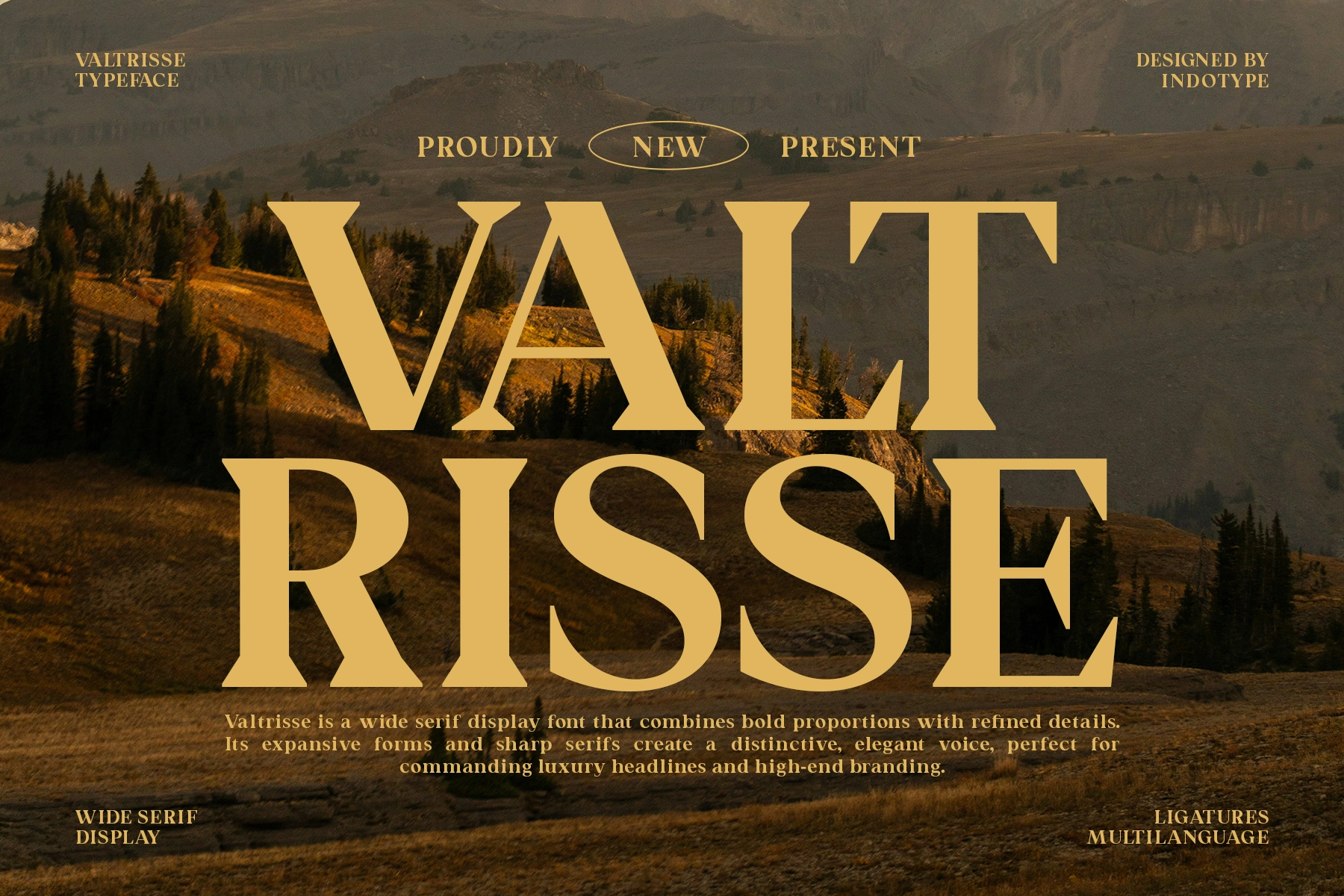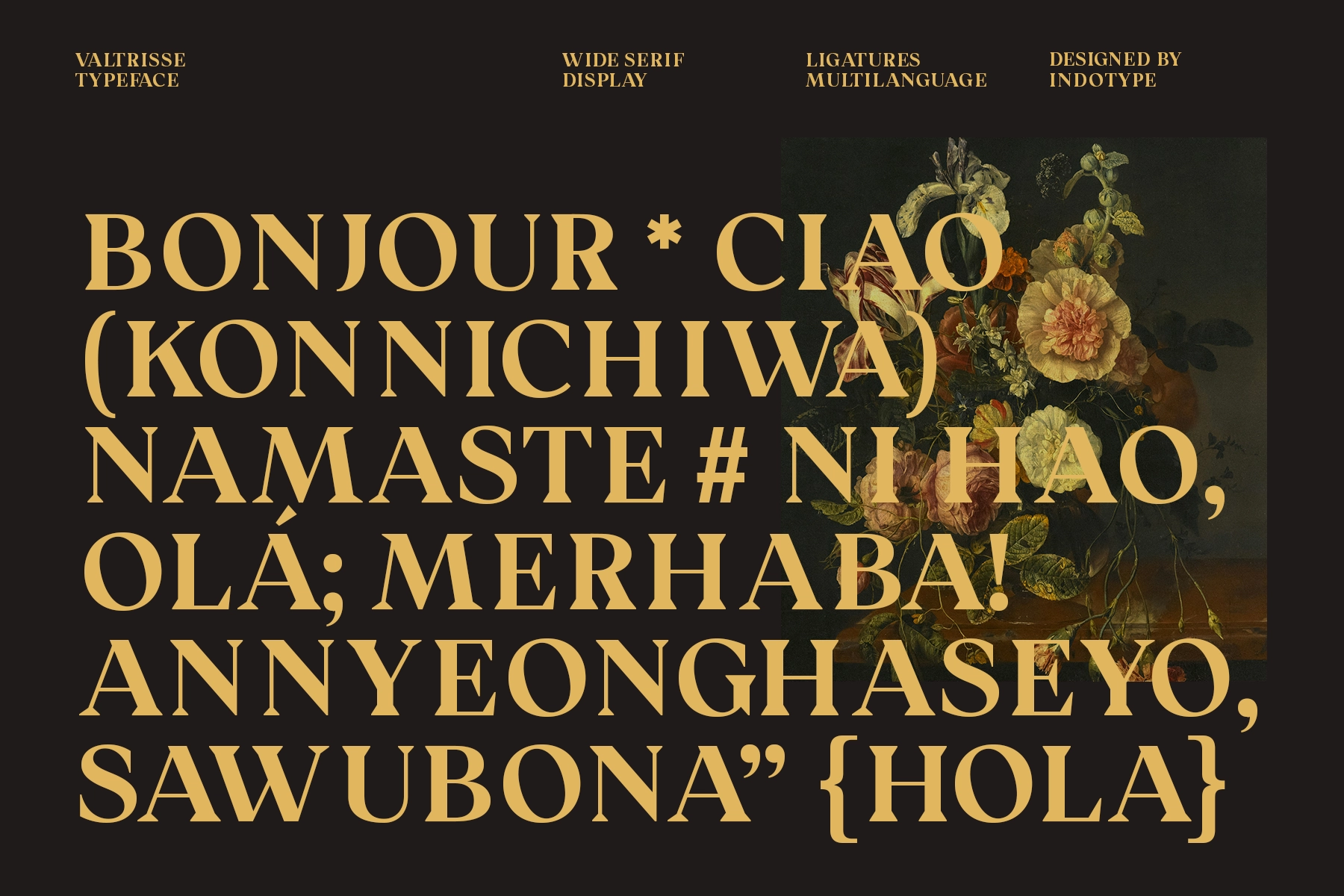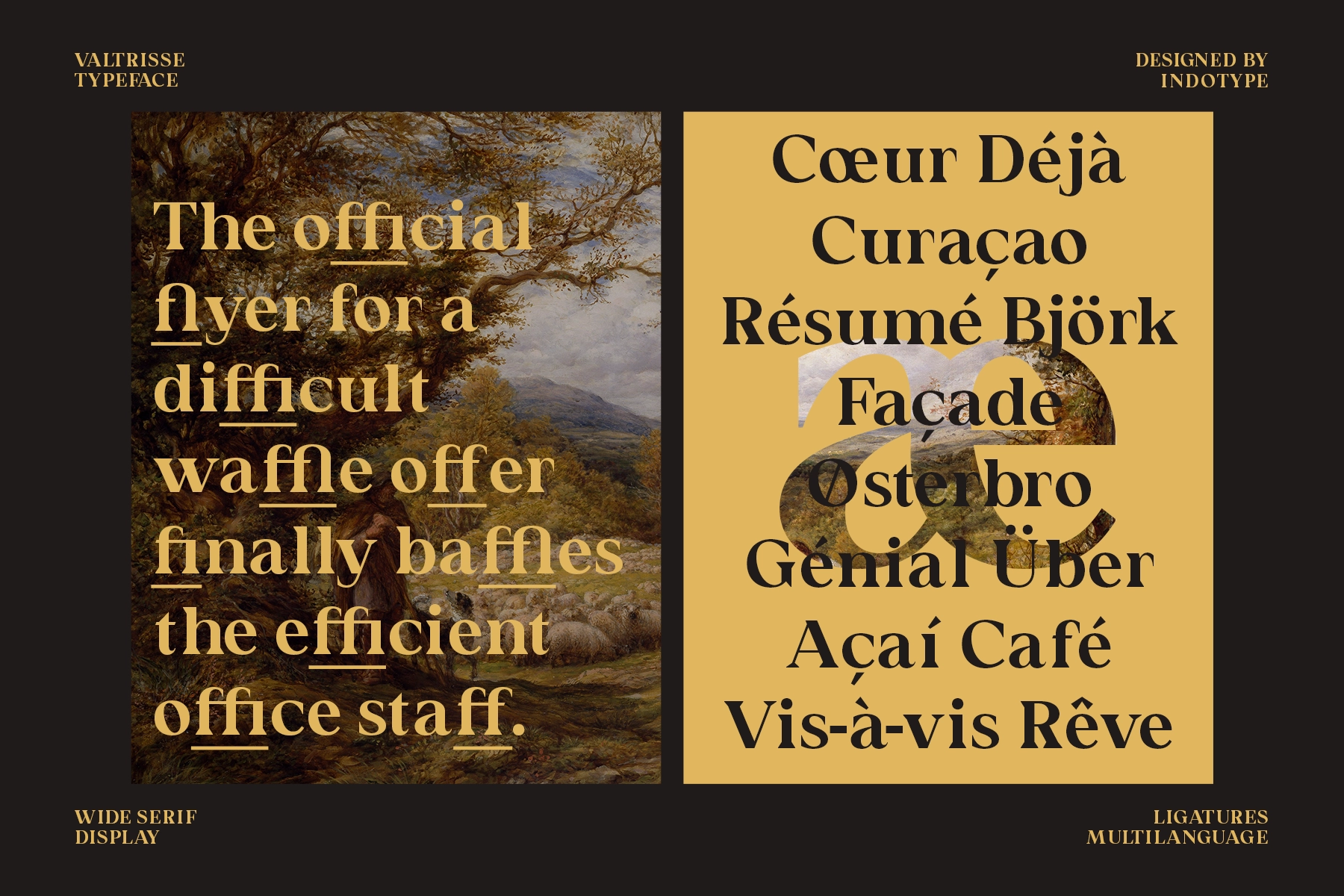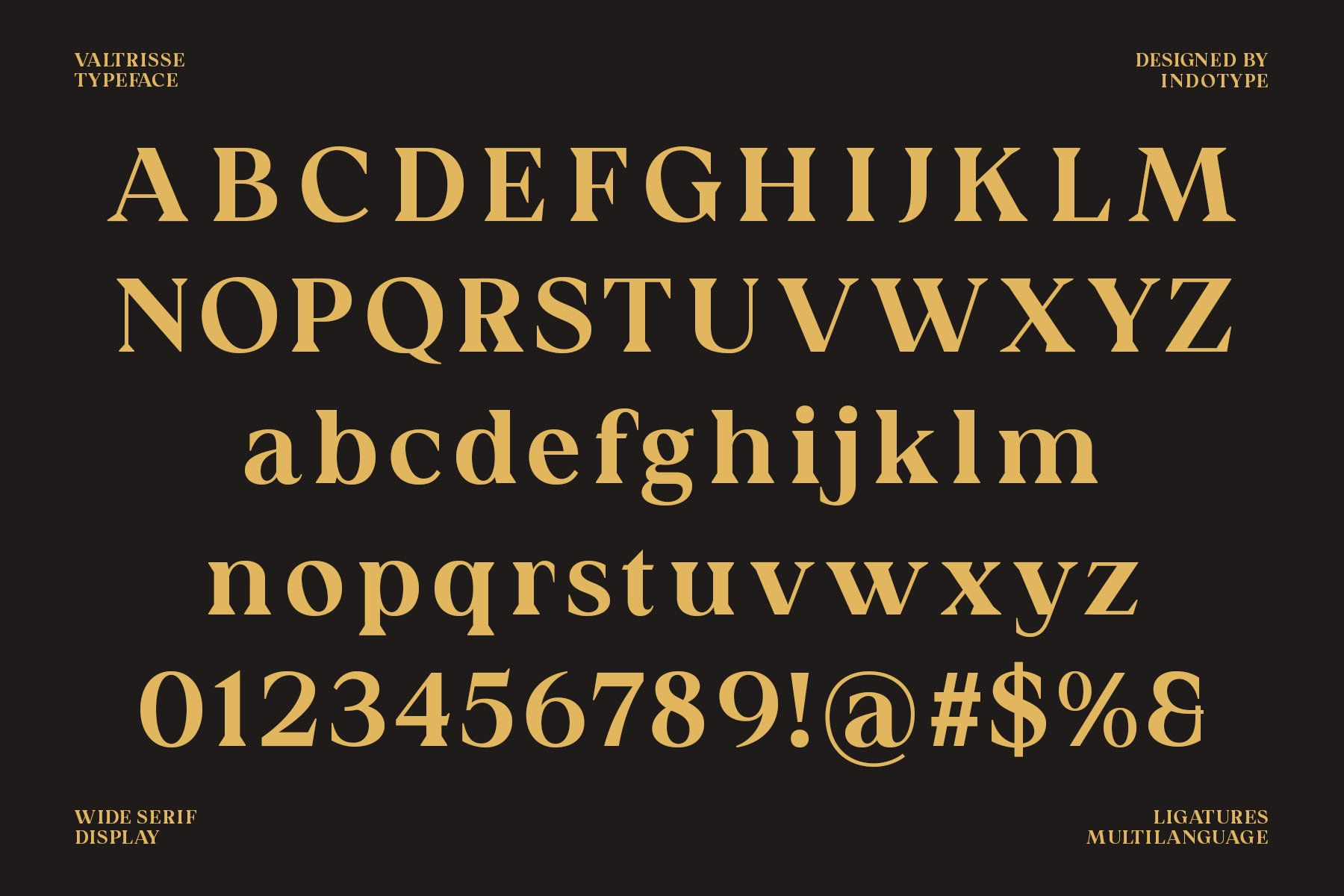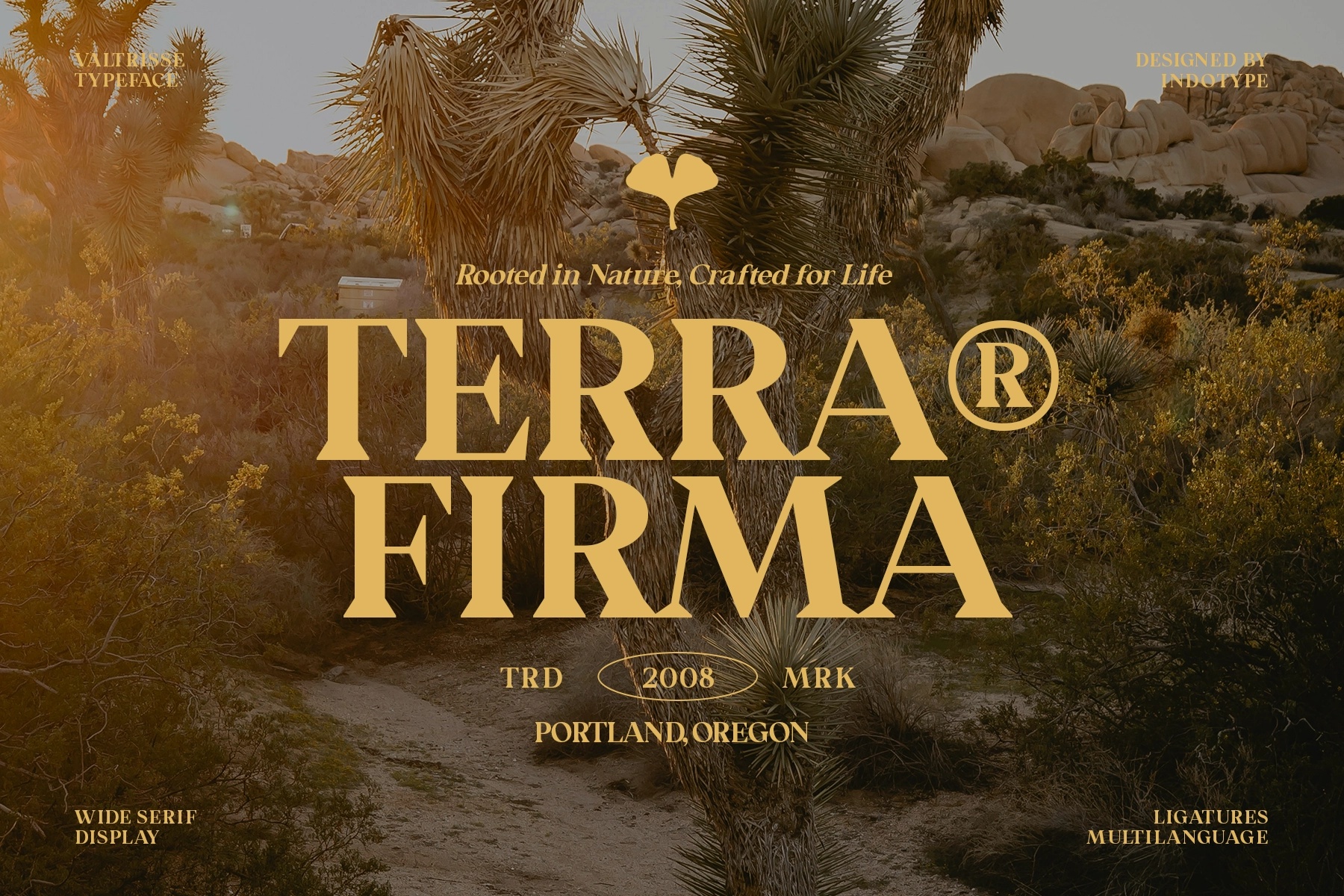
Valtrisse - Wide Serif Display Font
This elegant serif typeface is made for grand statements, with expansive letterforms, tall verticals, and sharp serifs that give every word a poised, commanding rhythm. Its wide proportions create strong all-caps compositions, while refined curves keep the tone polished rather than loud.
Valtrisse works beautifully for luxury branding, magazine headlines, fashion lookbooks, perfume packaging, boutique logos, premium labels, gallery posters, hotel identities, book covers, advertising campaigns, and more. It brings authority to large-scale typography and keeps high-end layouts crisp, composed, and visually confident.
- Uppercase & Lowercase Characters
- Ligature Support